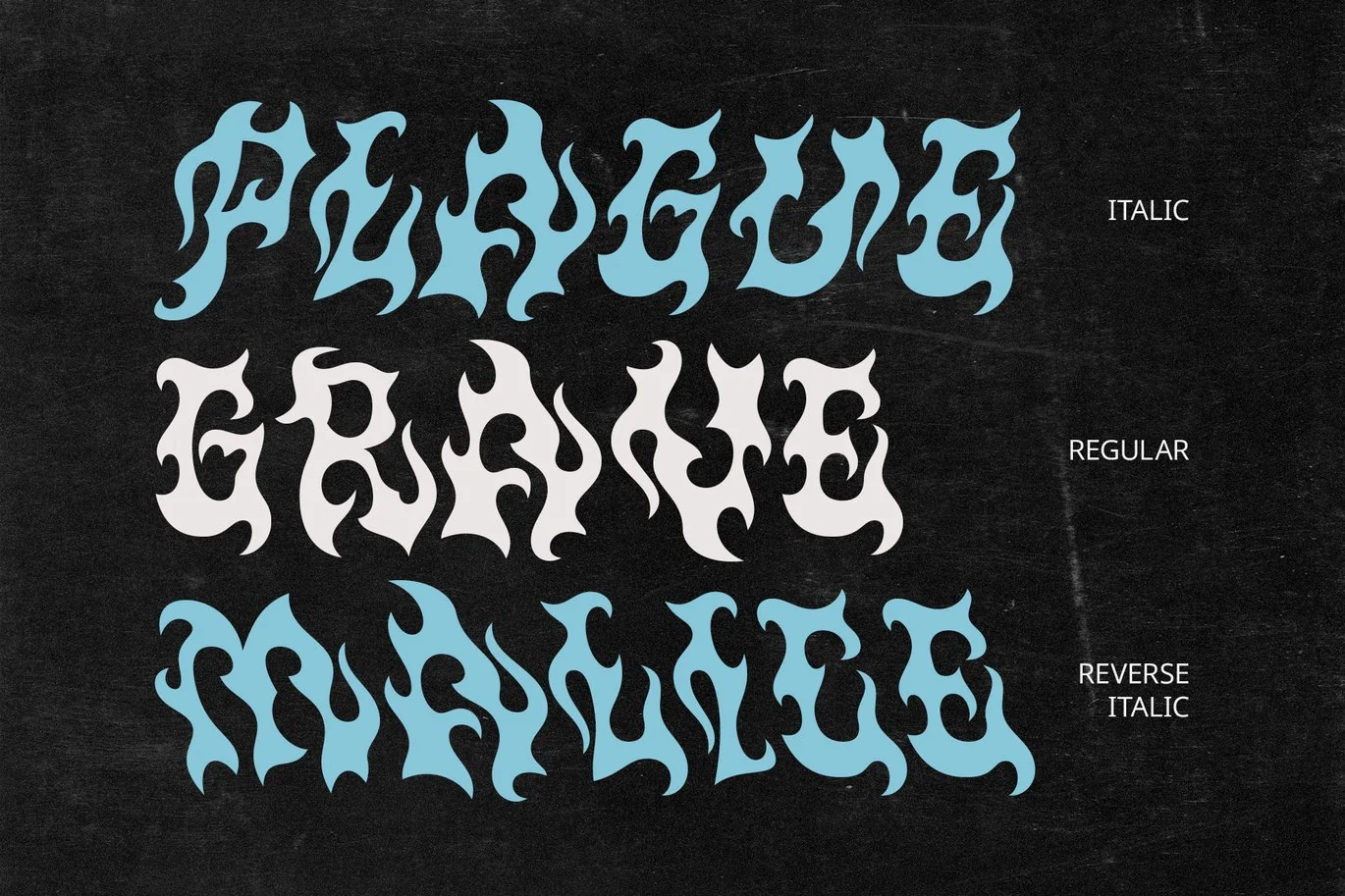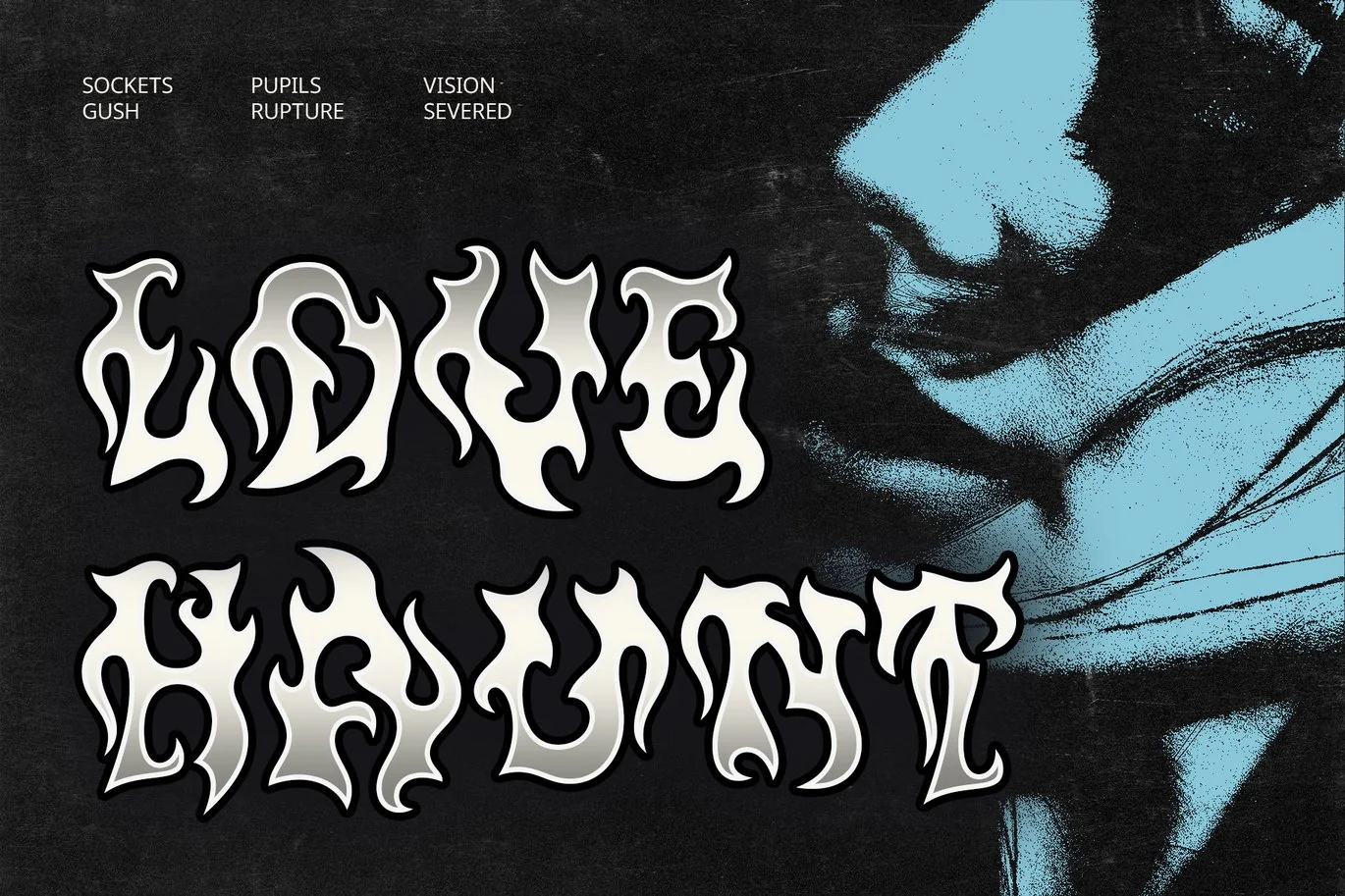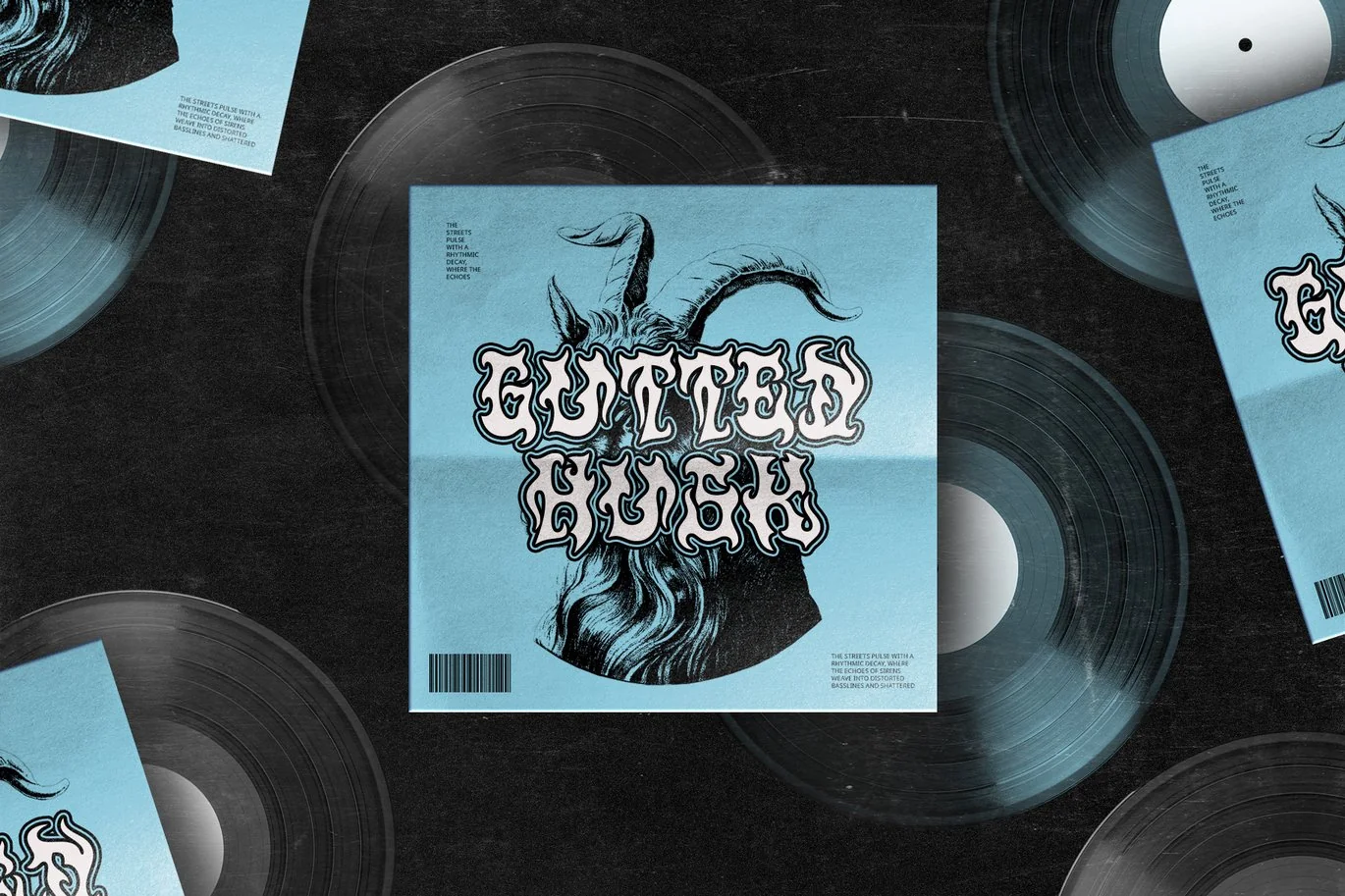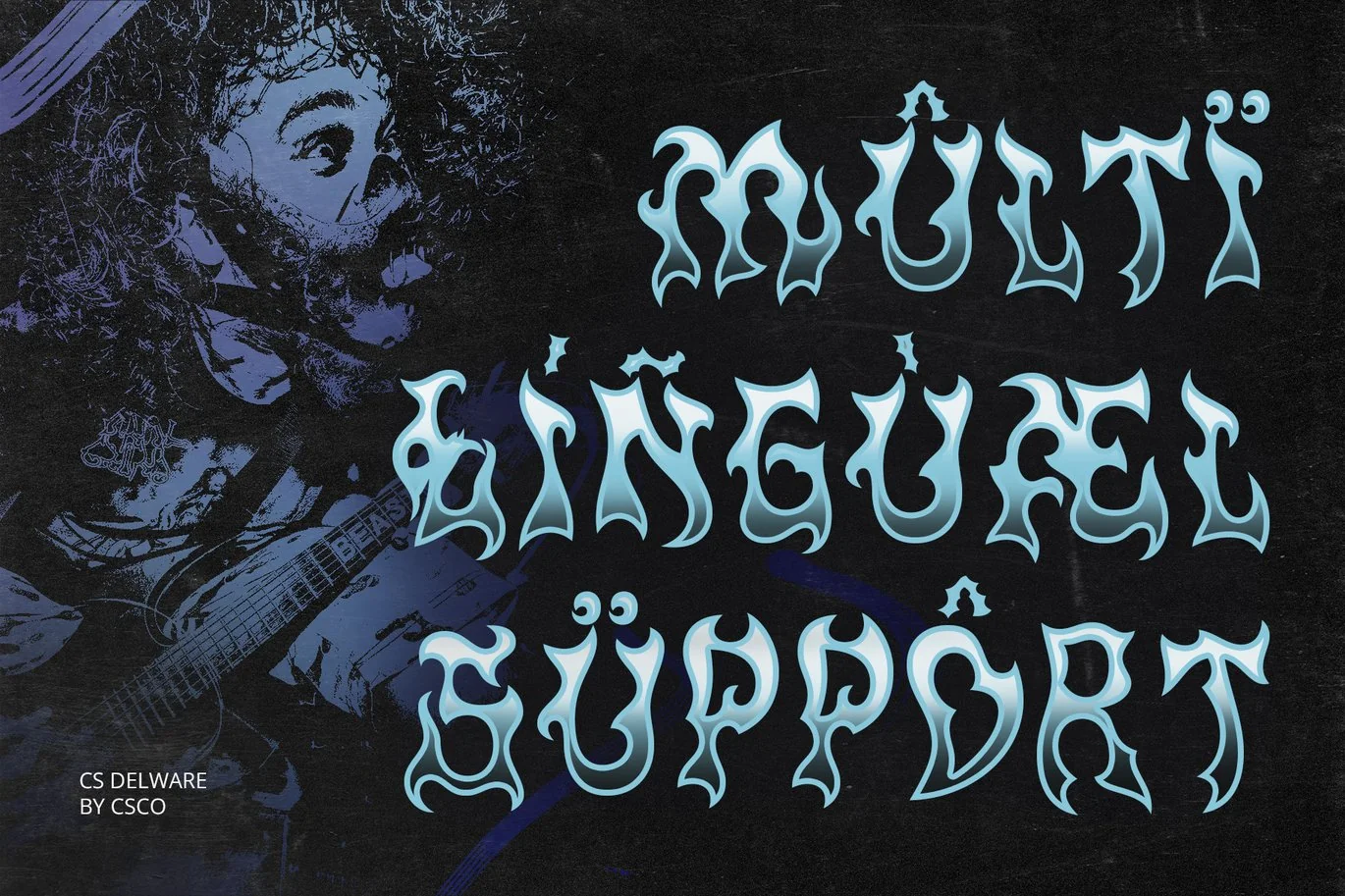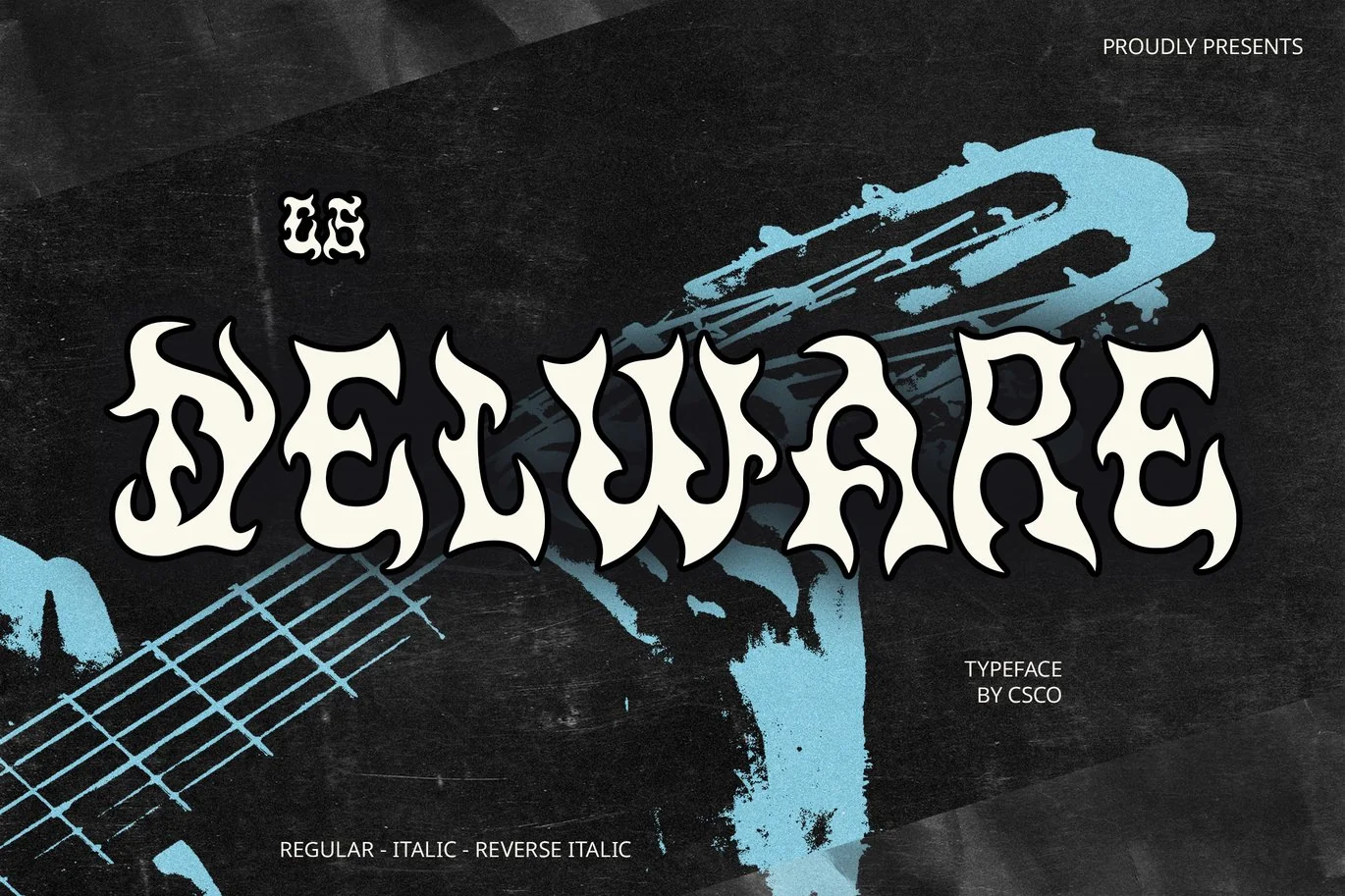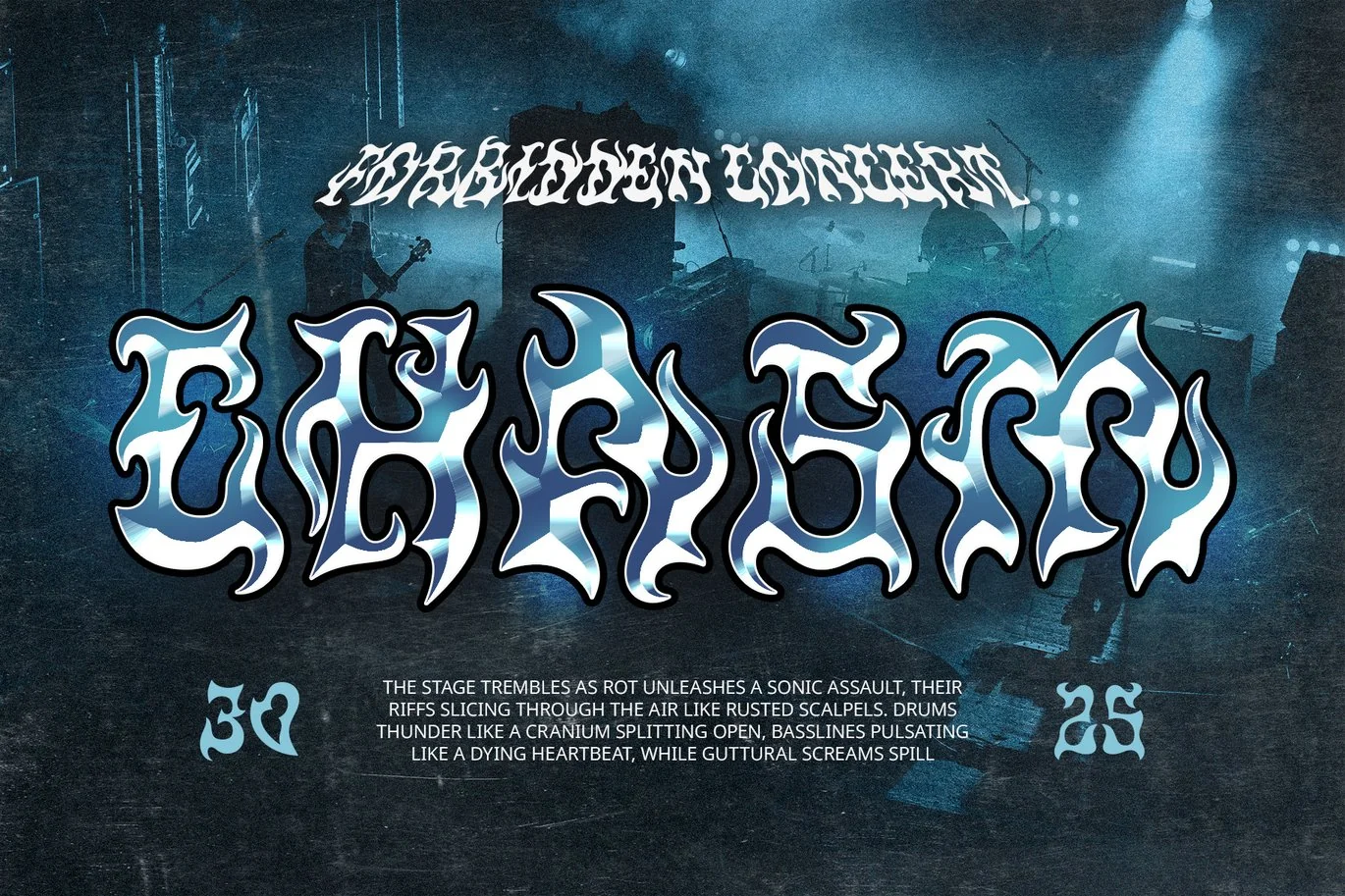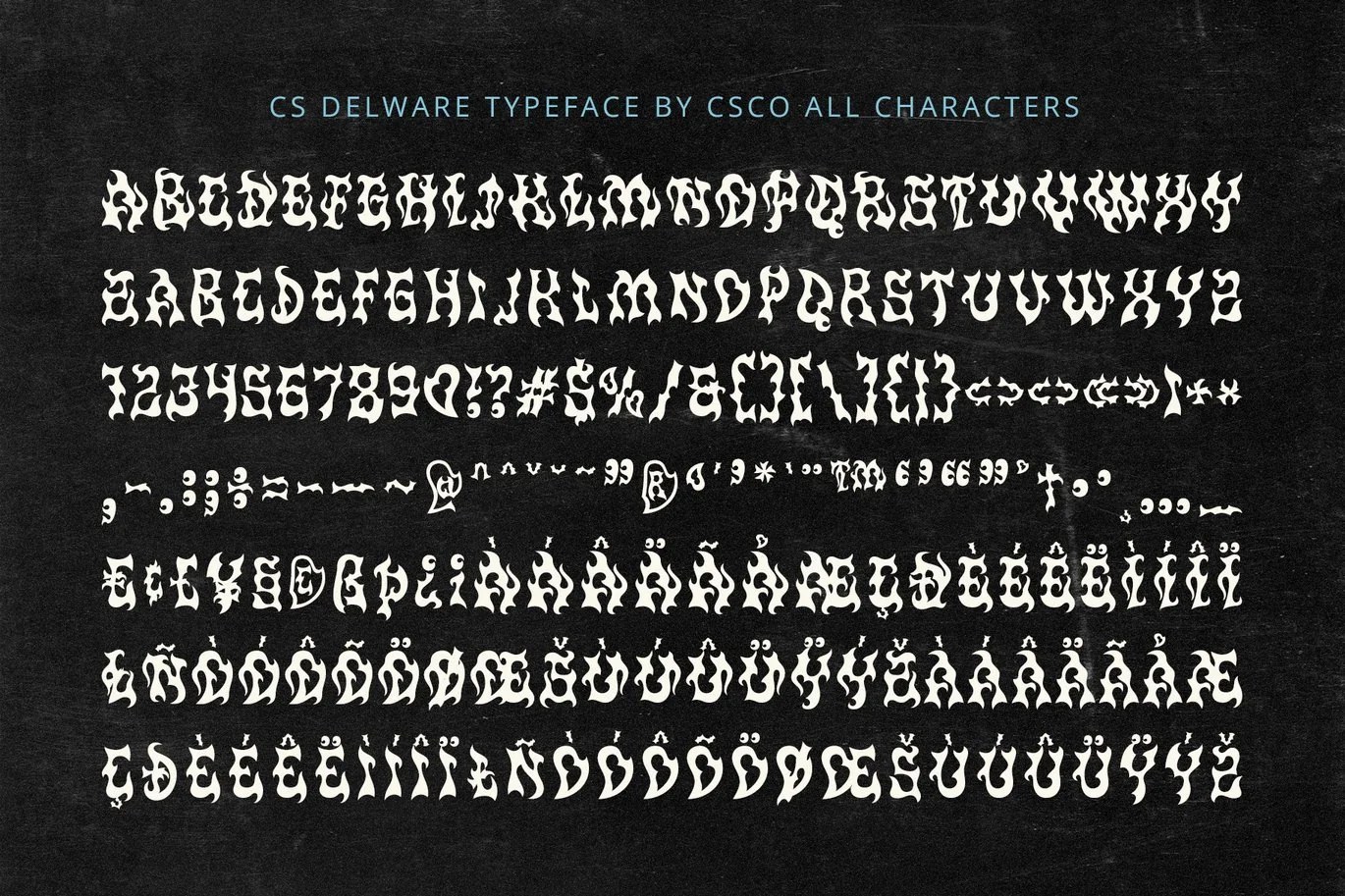
Delware – Black Metal Font
CS Delware – Black Metal Font: Embrace the Darkness with Brutal Typography
A Bold and Aggressive Black Metal Display Font
CS Delware is a black metal display font that embodies the raw intensity and sinister aura of extreme music culture. Featuring sharp, jagged, and distorted letterforms, this font captures the essence of brutality, chaos, and darkness, making it an ideal choice for projects that demand a powerful and rebellious presence.
Inspired by Gothic and Occult Aesthetics
Infused with elements of gothic lettering, occult symbolism, and ritualistic design, CS Delware carries a mystical and ominous character. The font’s elongated strokes and aggressive edges enhance its mysterious and arcane feel, perfect for dark-themed visuals and extreme artistic expressions.
Perfect for Metal and Underground Designs
Designed for metal band logos, album covers, concert posters, and alternative branding, CS Delware stands out with its bold and menacing look. Whether used for merchandise, horror aesthetics, or underground events, this font ensures a fearsome and commanding visual impact.
Uncompromising and Fearless Typography
CS Delware is crafted for those who seek intensity and raw energy in their typography. Its distorted yet structured appearance creates a chaotic yet controlled look, making it the ultimate choice for extreme music, gothic art, and dark fantasy themes. Let CS Delware bring unrelenting power and mystique to your designs.